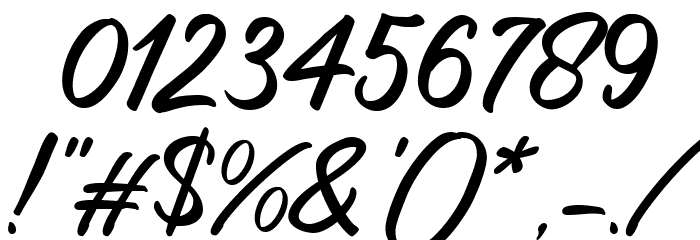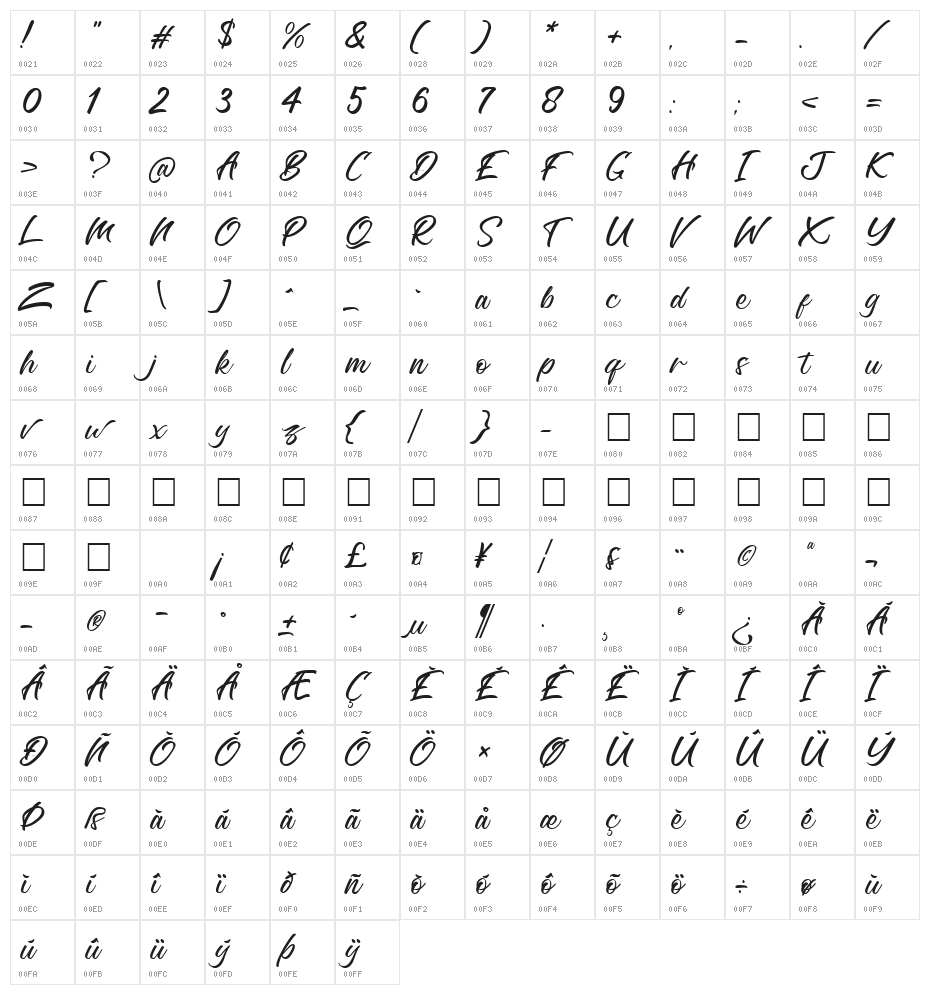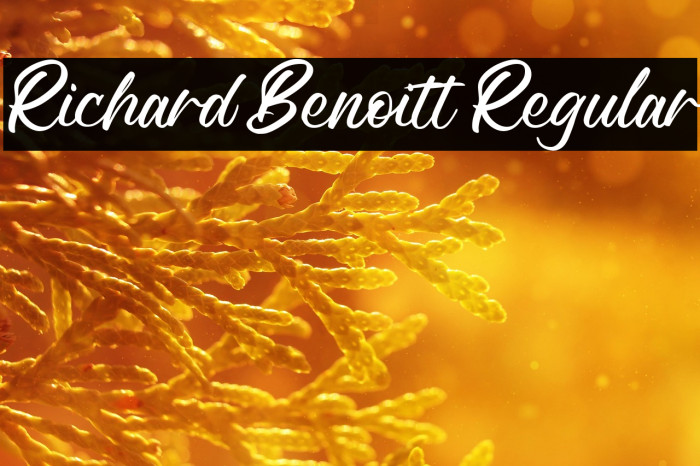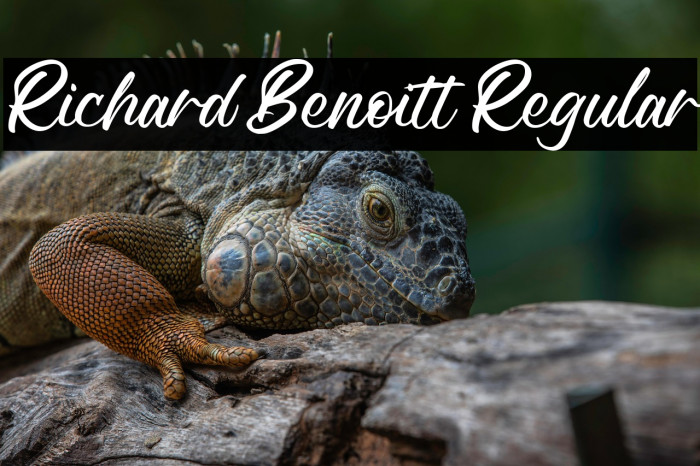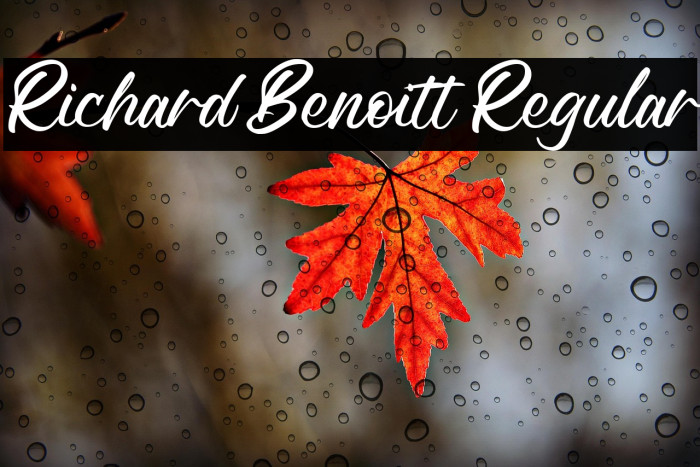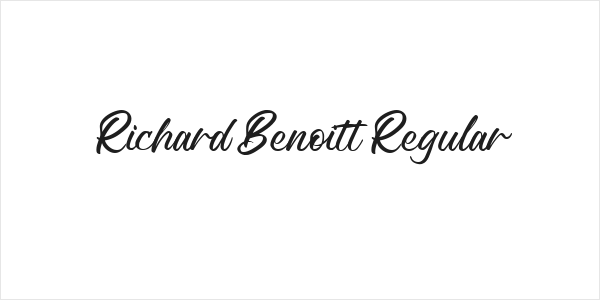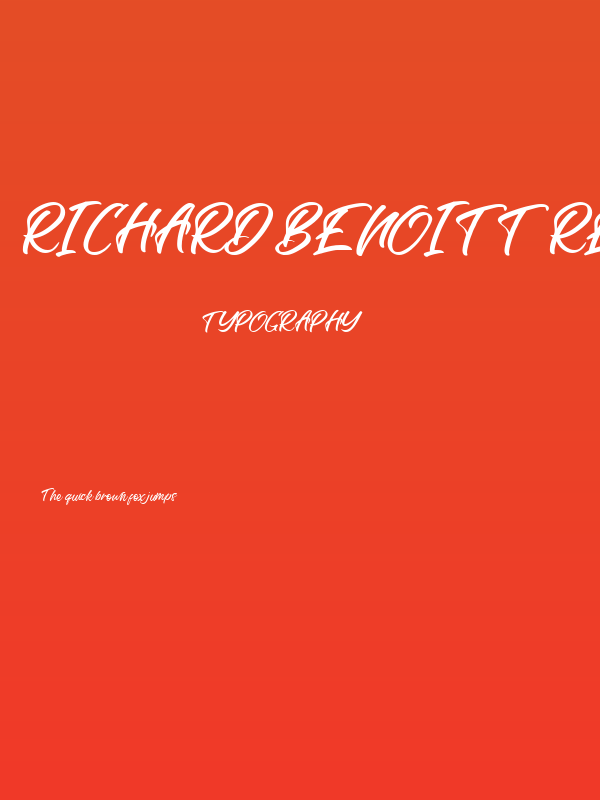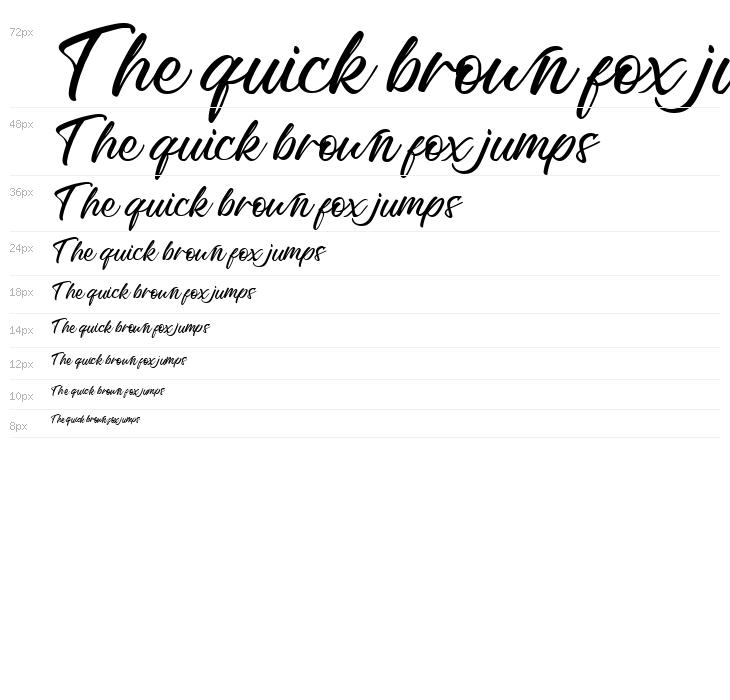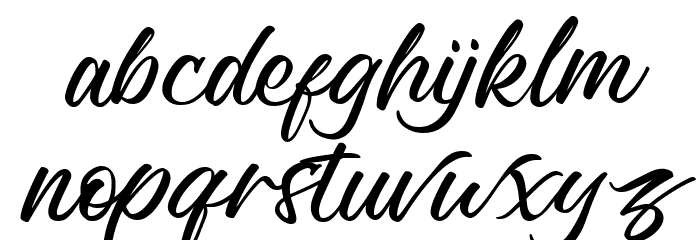
Richard Benoitt Regular Font
Richard Benoitt Regular Description
This font exhibits a dynamic and fluid script style, characterized by its elegant and flowing letterforms. The uppercase letters are bold and slightly slanted, giving a sense of movement and grace. The lowercase letters maintain a consistent style, with smooth curves and connected strokes that enhance readability while retaining a handwritten feel. The numerals are well-balanced, complementing the overall aesthetic. Special characters are crafted with the same attention to detail, ensuring they integrate seamlessly with the rest of the font. This font's design is both expressive and versatile, making it suitable for a variety of creative applications.
| Proposed Projects | Ideal for wedding invitations, branding, greeting cards, and elegant packaging designs. |